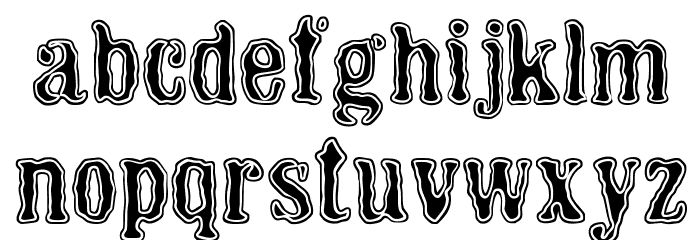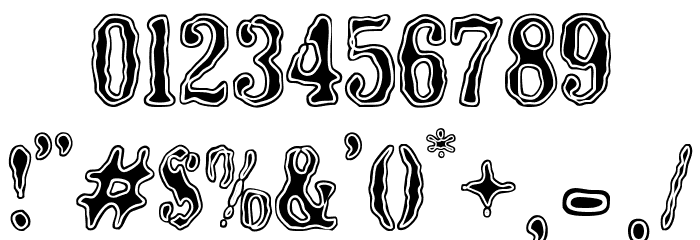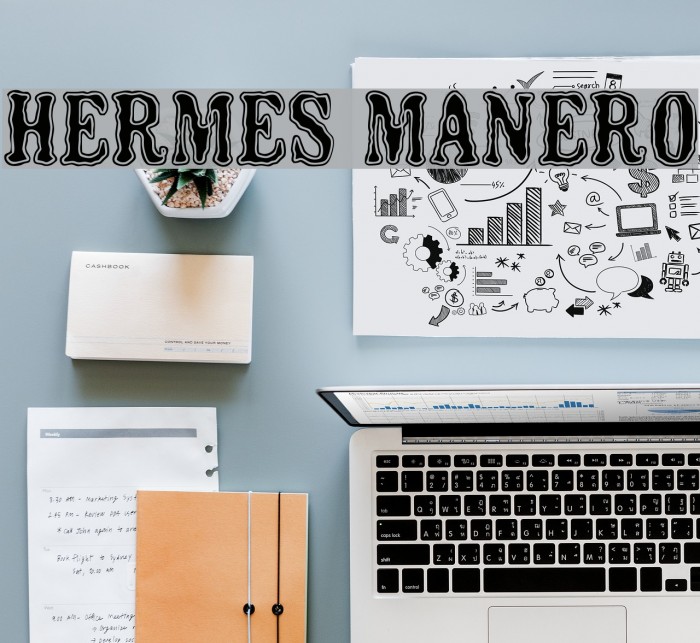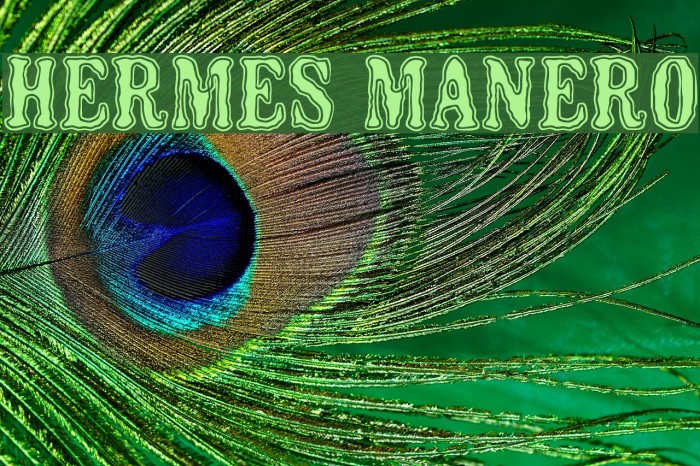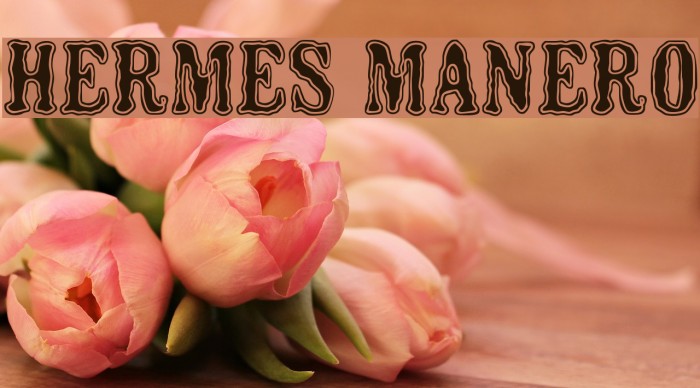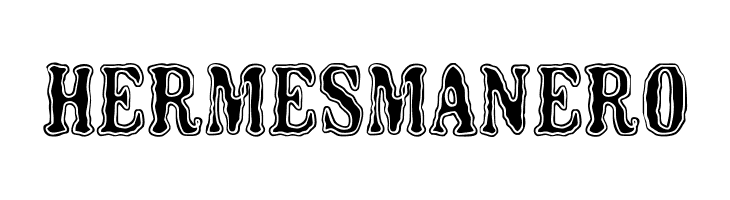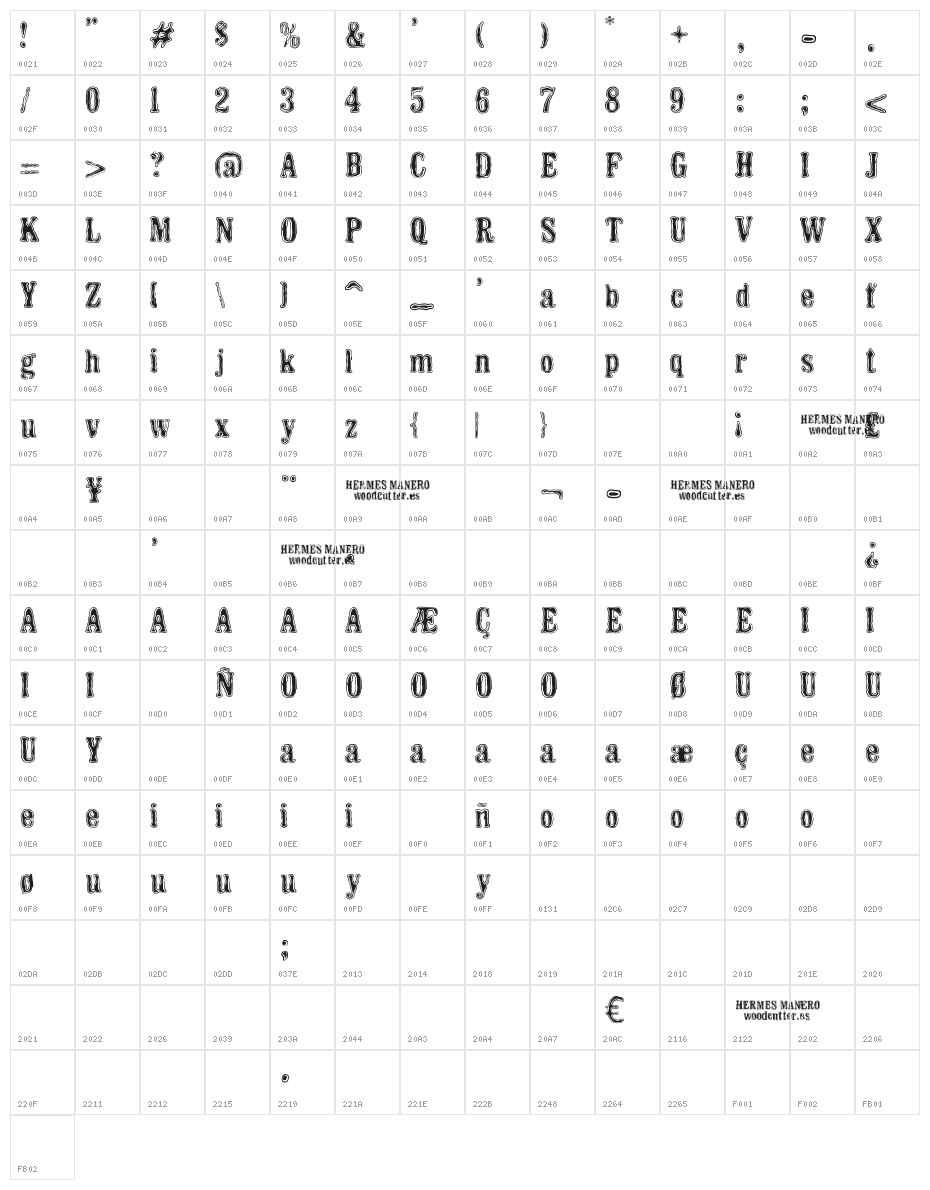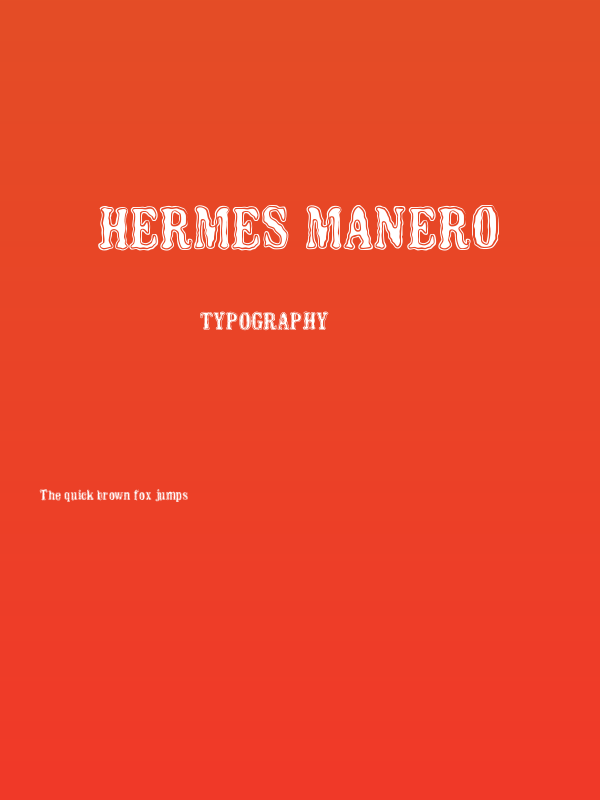
HERMES MANERO Font
This font features a bold and decorative style with a unique, wavy outline that gives each character a dynamic and playful appearance. The uppercase and lowercase letters are consistent in their boldness, with a slightly irregular edge that adds a handcrafted feel. The numerals and special characters maintain this distinctive style, ensuring a cohesive look across all glyphs. The font's thick strokes and high contrast make it stand out, ideal for eye-catching designs.
A bold, decorative font with wavy outlines and high contrast, perfect for standout designs.
- Proposed Projects: Ideal for poster designs, branding projects, album covers, and any creative work that requires a bold, artistic touch.